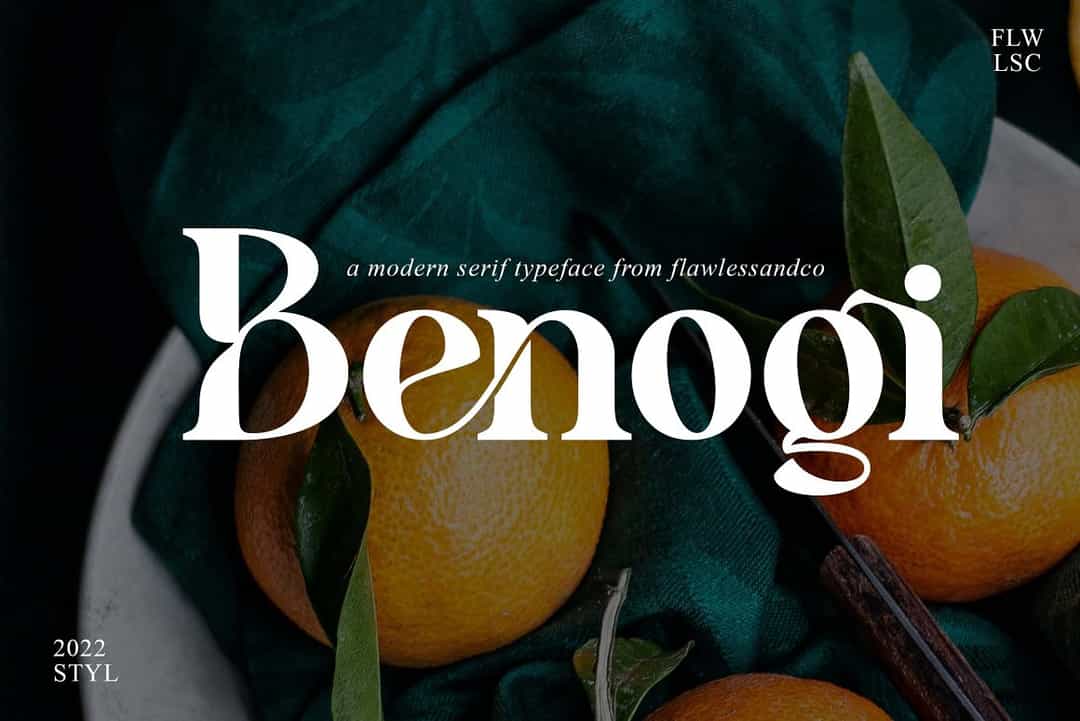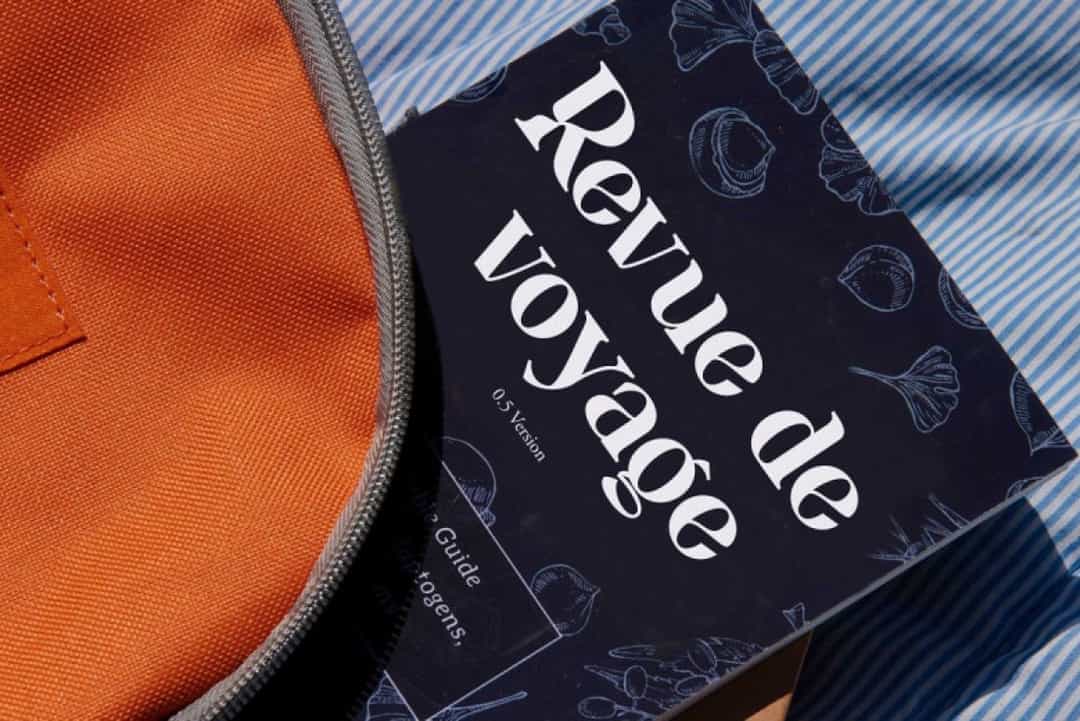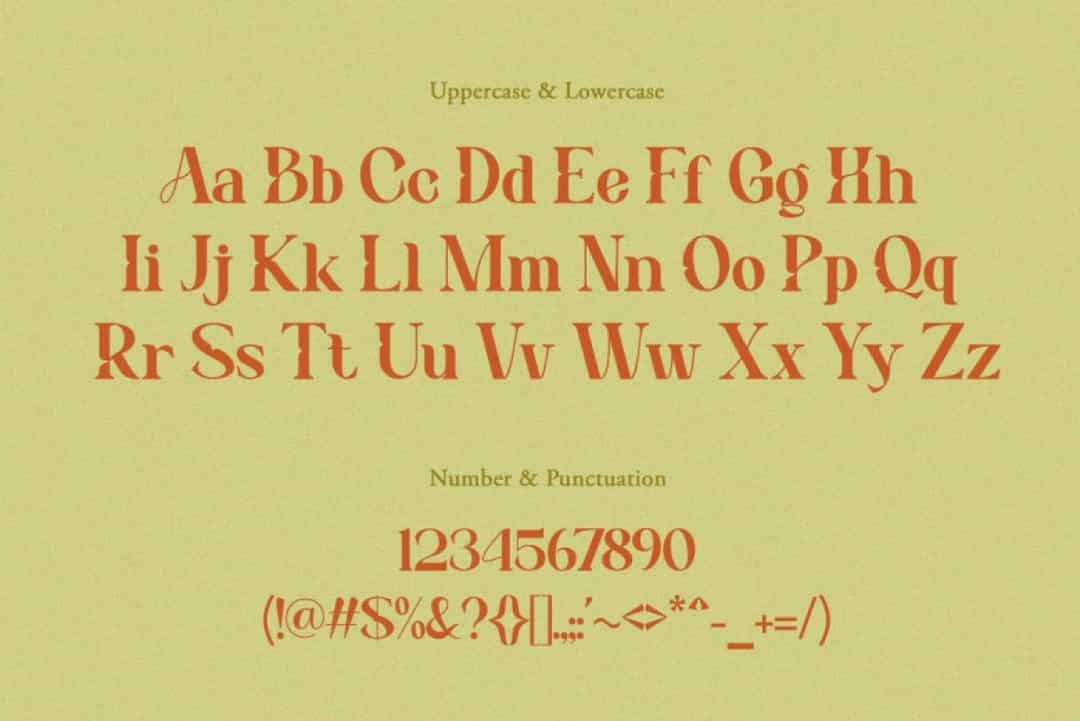
Benogi is a charming and sophisticated serif font. You will fall in love with its versatile use to make wedding invitations, stationary items and Instagram posts look magnificently stylish and classy!